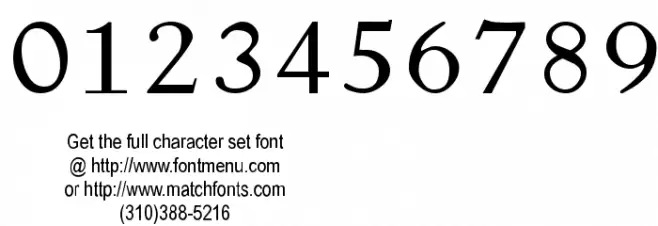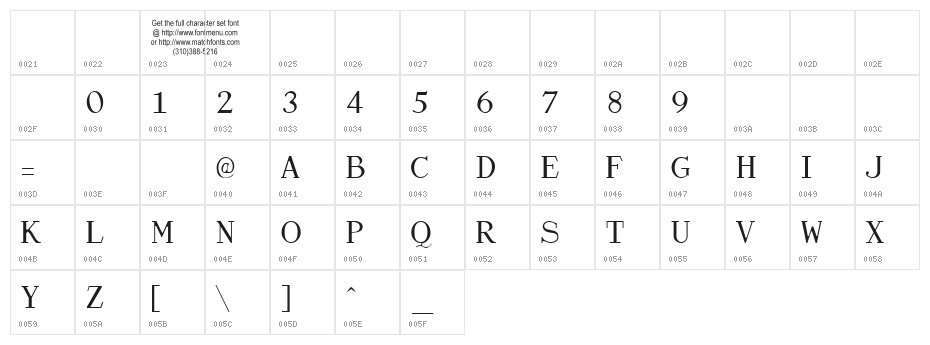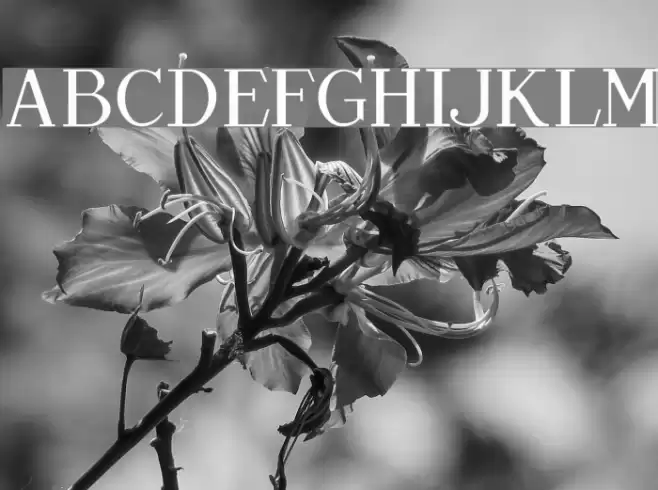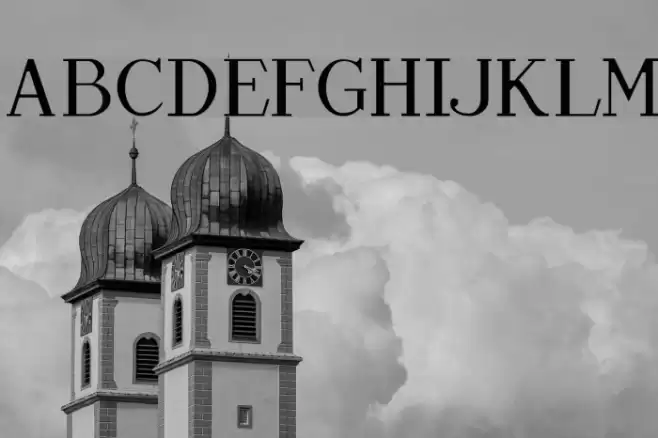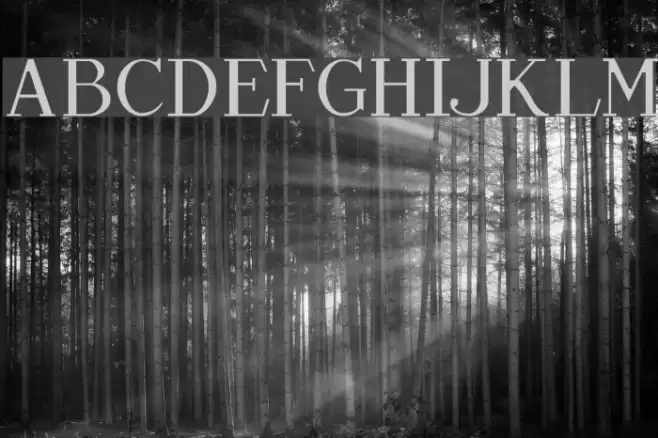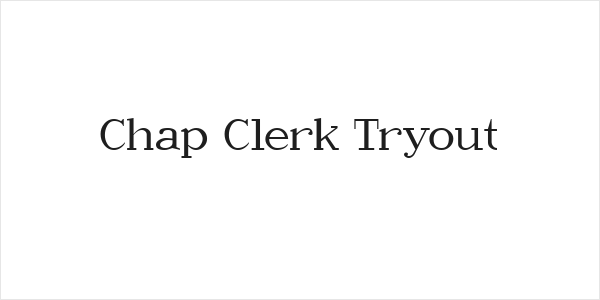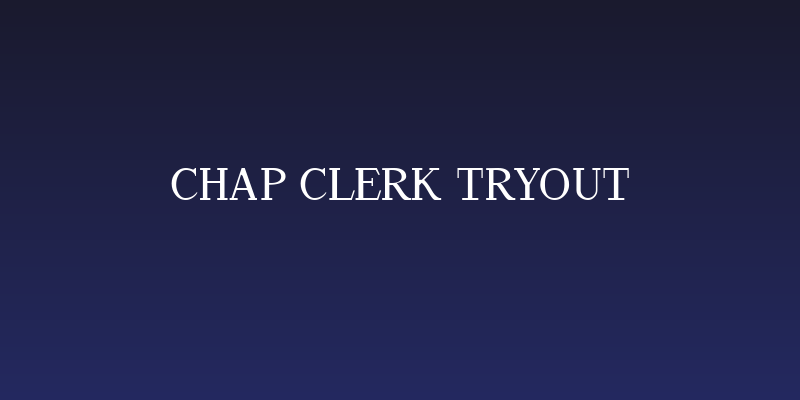
Chap Clerk Tryout Font
Chap Clerk Tryout Description
This font features a classic serif style with elegant and refined strokes. The uppercase letters are tall and distinguished, while the lowercase letters maintain a balanced and harmonious appearance. The numerals are clear and easy to read, with a traditional design that complements the overall aesthetic. The special characters are well-integrated, providing versatility for various uses. The font's design is suitable for conveying a sense of sophistication and timelessness, making it ideal for formal documents, branding, and editorial design.
| Proposed Projects | Ideal for formal documents, branding, editorial design, and any project requiring a sophisticated and classic look. |